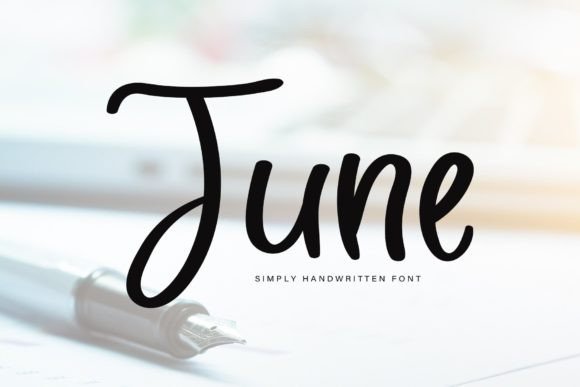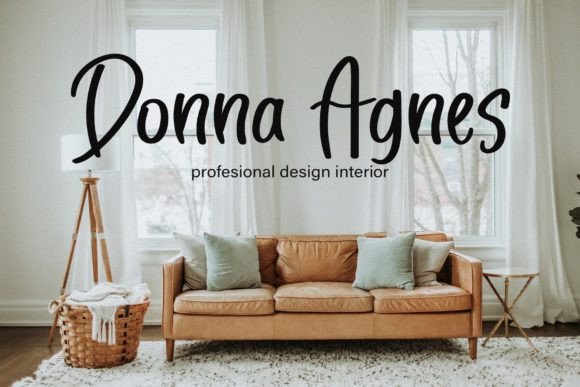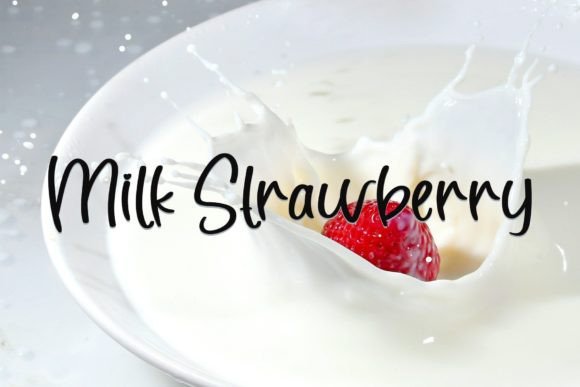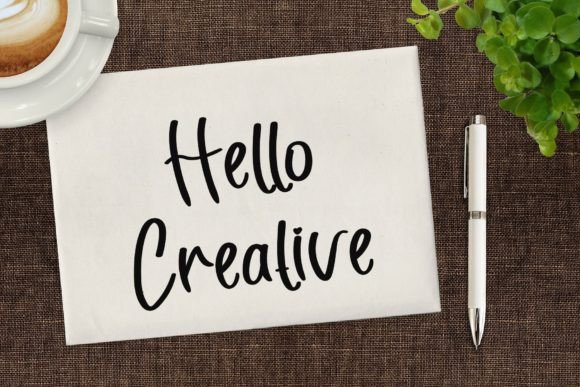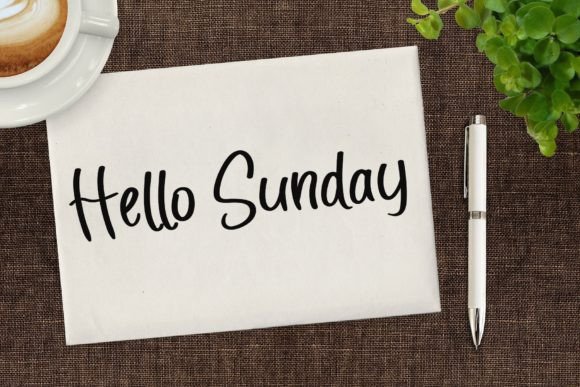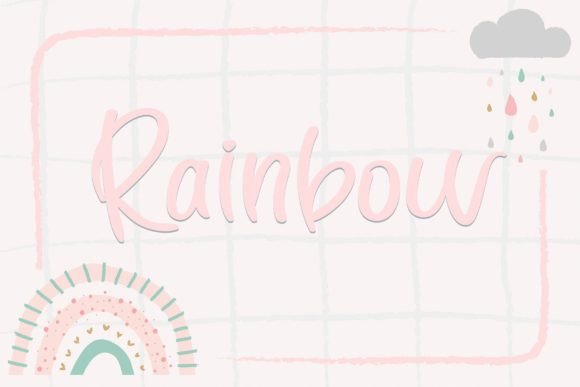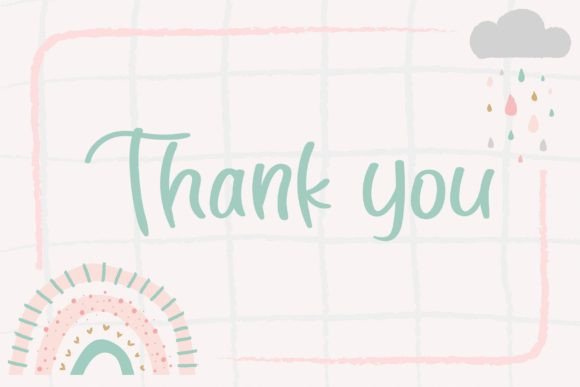
June Font
About June Font
“June” isn’t just a font; it’s a symphony of elegance and grace, a poetic dance of characters that glide along the baseline with a captivating rhythm. Crafted with meticulous care, each letter in this handwritten font embodies the essence of sweetness and beauty, transforming any design project into a work of art.
Imagine your creations infused with the enchanting charm of June. Its handwritten allure brings a unique and personal touch, making every word come alive as if penned by an artist’s hand. Whether you’re designing wedding invitations, crafting a sophisticated logo, or creating a stylish packaging label, June adds a touch of luxury that elevates your work to a realm of refined aesthetics.
The characters in June don’t just occupy space on the page; they dance with a graceful fluidity, leaving behind a trail of sophistication. This font isn’t merely a tool; it’s a statement, a testament to the artistry of handwritten craftsmanship. It transforms ordinary invitations into cherished mementos, where every stroke of the pen speaks of love and celebration. In branding, June becomes a mark of distinction, a visual representation of the exquisite taste and attention to detail that your brand embodies.
Envision June adorning the labels of premium products, turning everyday items into symbols of elegance and refinement. It’s the ideal choice for luxurious packaging, where every swirl and curve enhances the perceived value of the product within. Imagine your advertisements and banners, each word in June creating an irresistible allure that captivates viewers, leaving them mesmerized by the sheer beauty of the typography.
In a world inundated with commonplace fonts, June emerges as a beacon of sophistication and charm. Its handwritten style adds a personal dimension to your projects, forging a deep connection with your audience. It’s more than just a font; it’s an experience—an experience that speaks of taste, class, and exclusivity.
When you choose June for your design projects, you’re not merely selecting a font; you’re curating an atmosphere of luxury and refinement. You’re setting the stage for a visual masterpiece, where every letter tells a story and every curve evokes an emotion. June is more than a typeface; it’s a work of art, a stroke of creative brilliance that transforms your ideas into extraordinary creations.
So, whether you’re a seasoned designer pursuing perfection or an individual with a passion for aesthetics, June is your trusted companion. It’s more than a font; it’s an investment in beauty, a choice that speaks volumes about your dedication to quality and style. Let June be the brush that paints your imagination and the handwritten touch that elevates your designs to unparalleled heights.